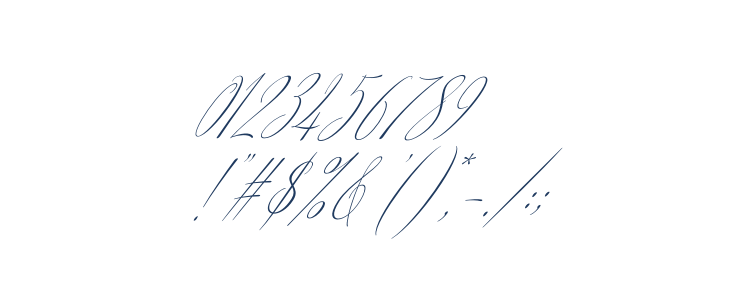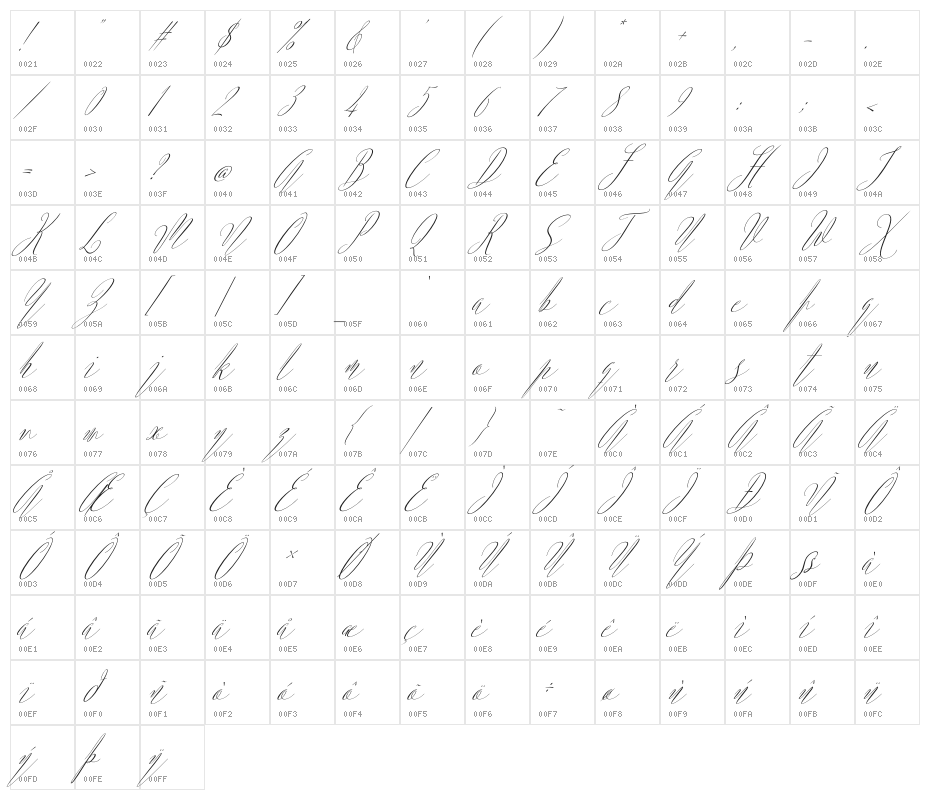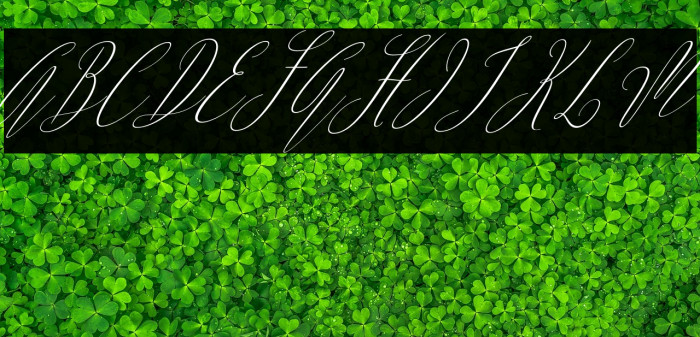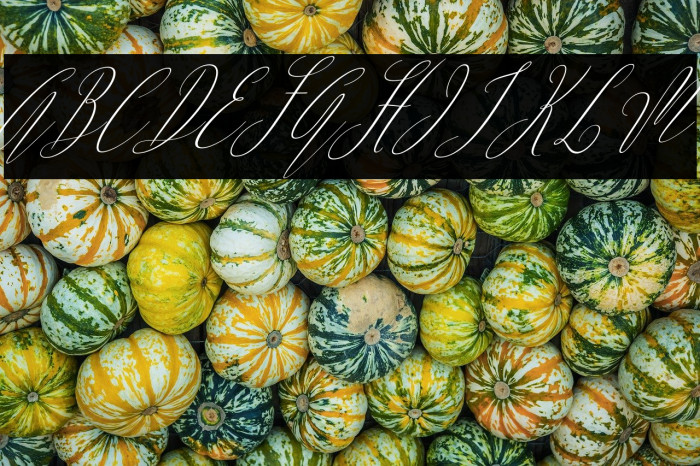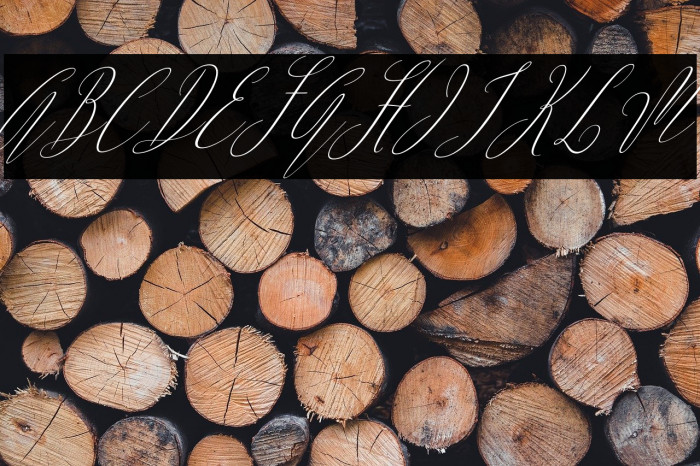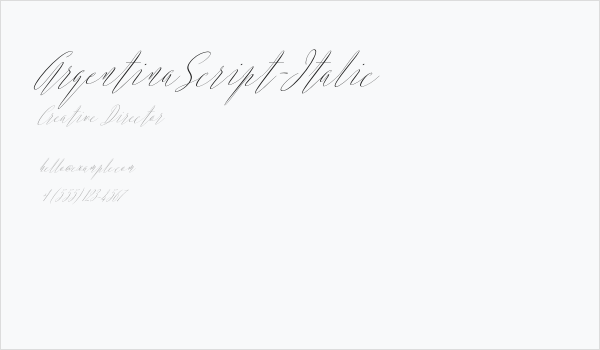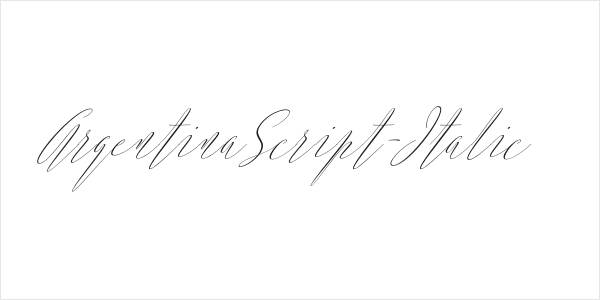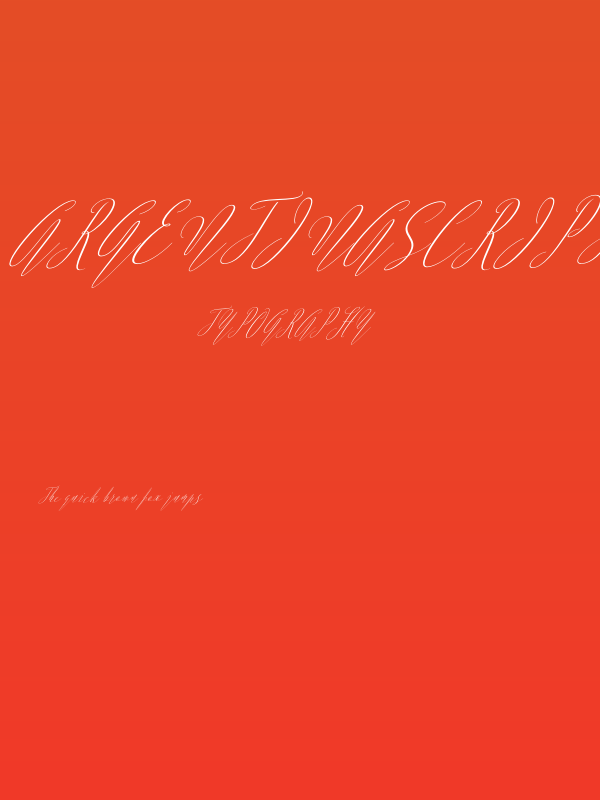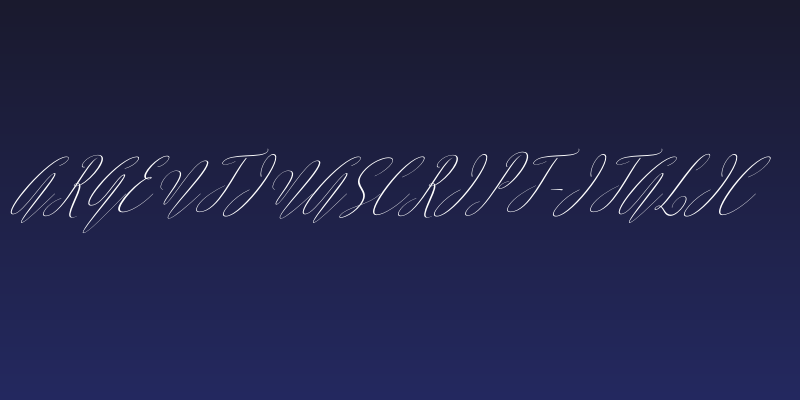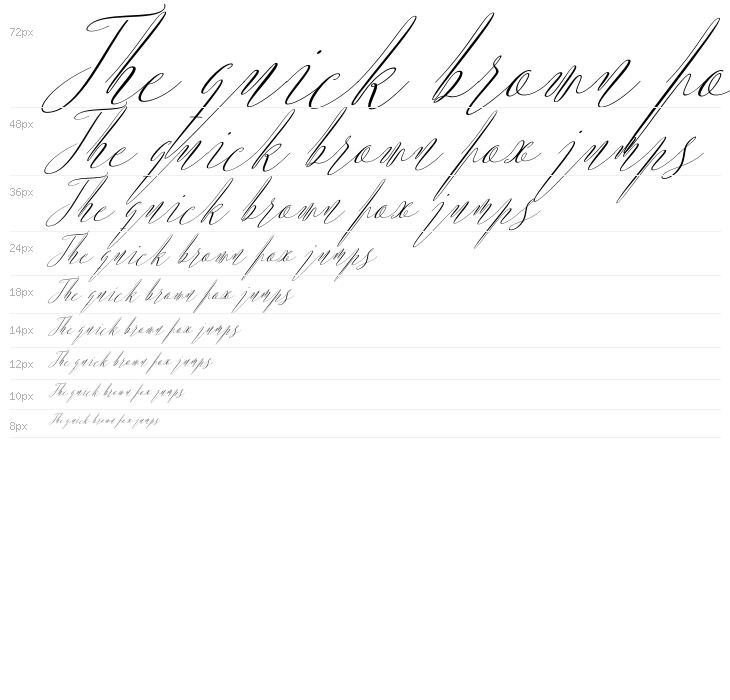
ArgentinaScript-Italic Font
ArgentinaScript-Italic Description
This elegant script font features a flowing, cursive style with a distinct italic slant. The characters are connected, creating a seamless and fluid appearance that mimics natural handwriting. The uppercase letters are ornate and sophisticated, while the lowercase letters maintain a consistent rhythm and grace. The numerals and special characters complement the overall aesthetic, adding to its versatility. The font's thin strokes and high contrast give it a refined and delicate look, perfect for adding a touch of elegance to any project.